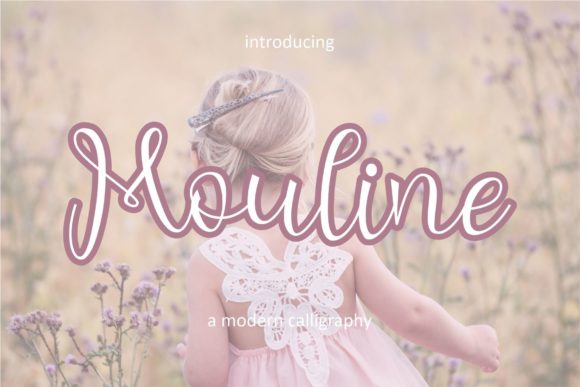
Unleash your creativity with Mouline, the captivating script font that will transform your designs into works of art. Its elegant curves and playful flourishes evoke a sense of whimsy and charm, making it the perfect choice for adding a touch of magic to any project.
Whether you're crafting heartfelt quotes, designing enchanting invitations, or creating captivating social media posts, Mouline will elevate your creations to new heights. Its versatility knows no bounds, as it effortlessly complements a wide range of styles, from classic to contemporary.
With Mouline in your font library, you'll never be short of inspiration. Its ability to enhance any creation will empower you to express yourself with confidence and creativity. Let your imagination soar and watch as Mouline brings your designs to life, captivating hearts and leaving a lasting impression.
Embrace the beauty of Mouline today and let your creativity shine brighter than ever before. This dazzling script font is not just another addition to your collection; it's a gateway to a world of endless possibilities, where your designs will bloom with imagination and your words will dance with grace.